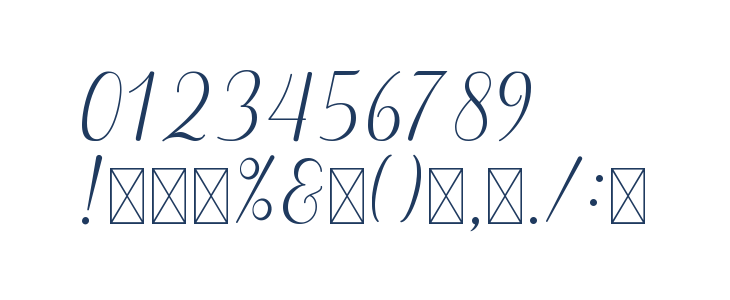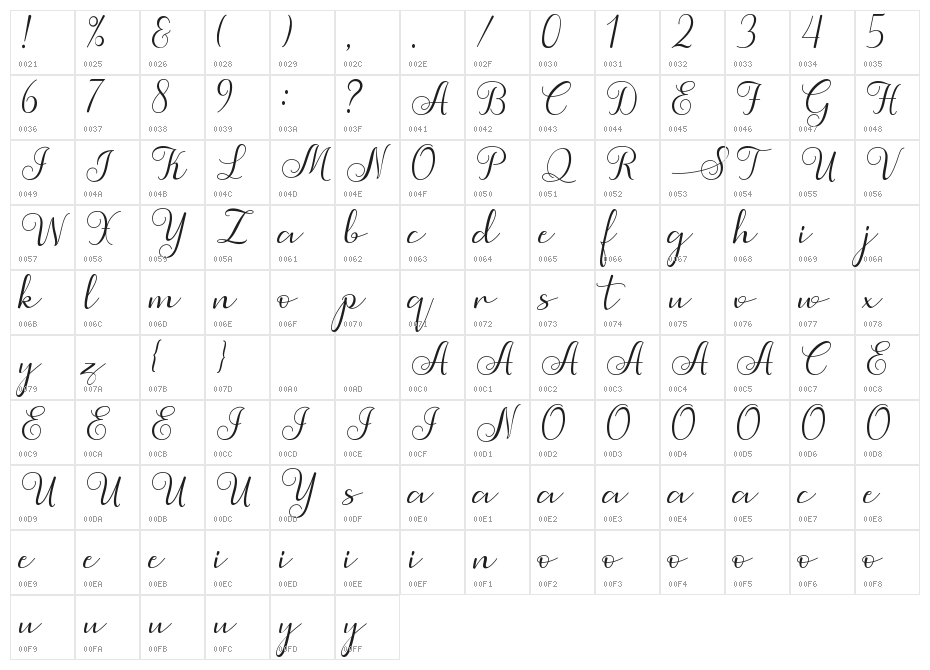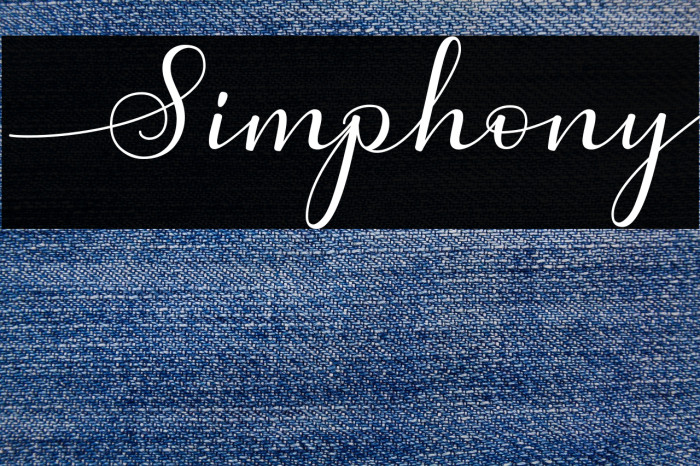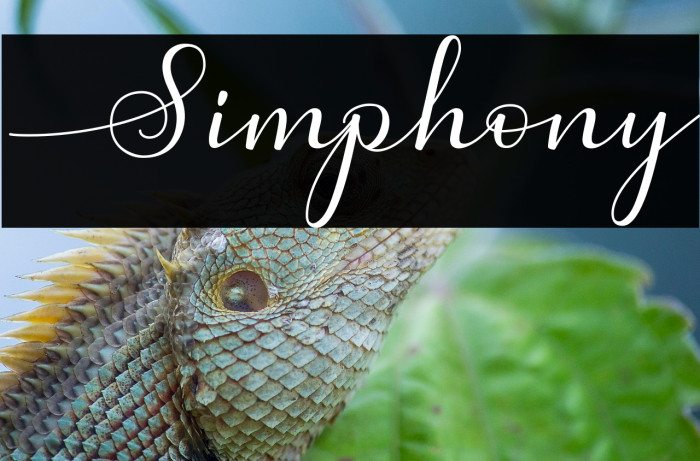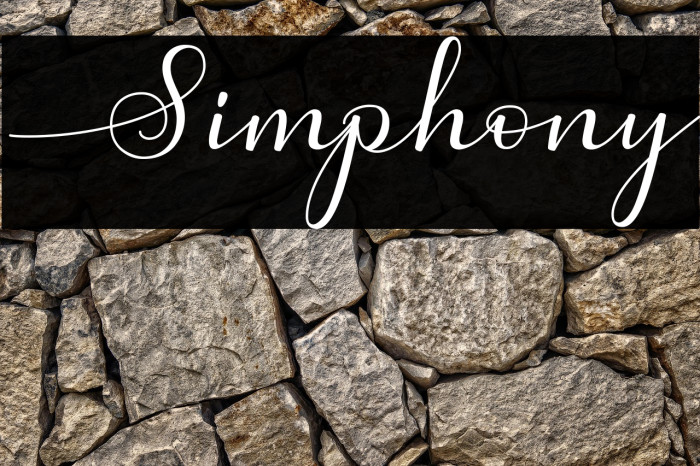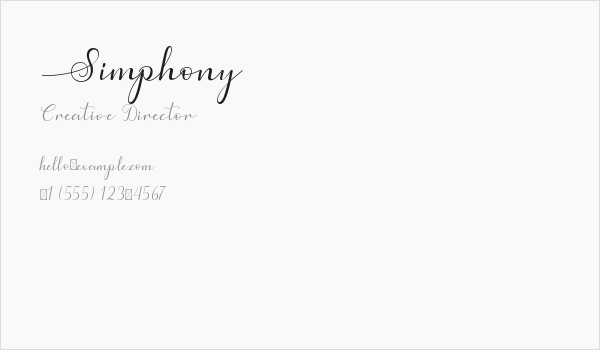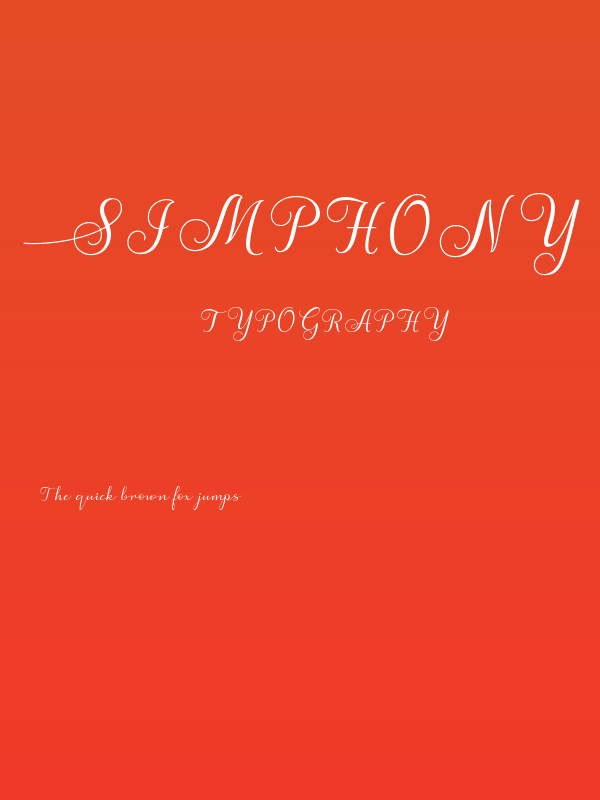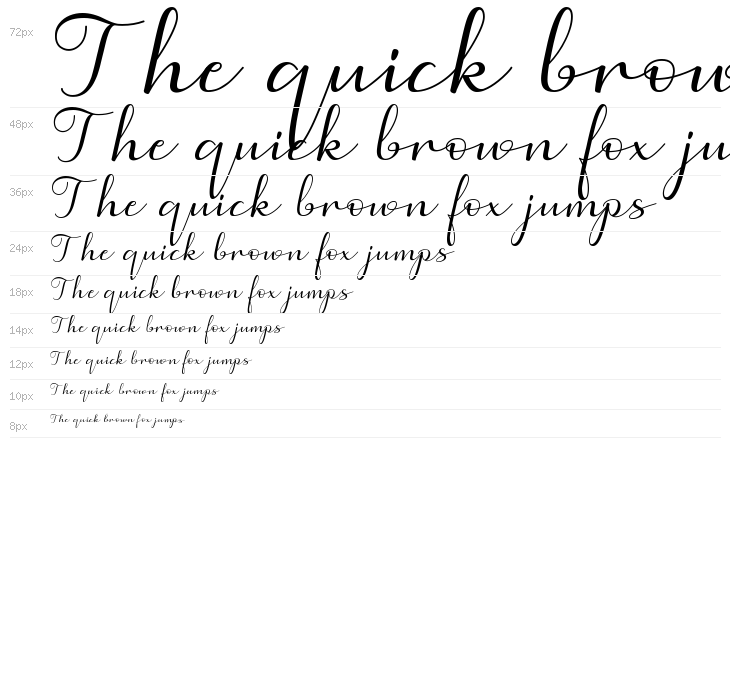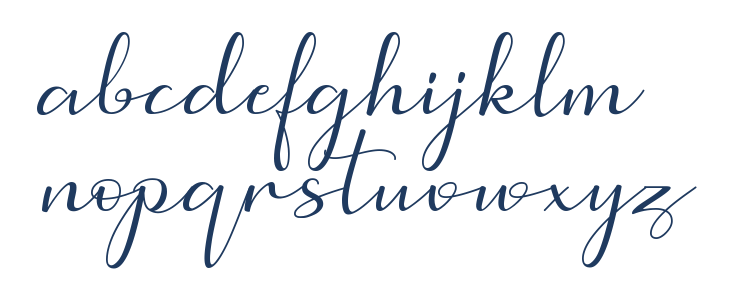
Simphony Font
Simphony Description
This elegant script font features flowing, cursive letterforms with a classic and sophisticated appearance. The uppercase letters are adorned with delicate loops and swirls, adding a touch of refinement and grace. The lowercase letters maintain a smooth and fluid connection, enhancing the overall harmony of the text. The numerals are stylish yet legible, complementing the script style without compromising readability. Special characters are thoughtfully designed to match the elegance of the alphabet, making this font suitable for a variety of formal and decorative applications.
| Overall Style | Classic |
| Use Case | Logos, Invitations, Decorative text |
| Proposed Projects | Ideal for wedding invitations, elegant branding, luxury packaging, and formal event materials. |